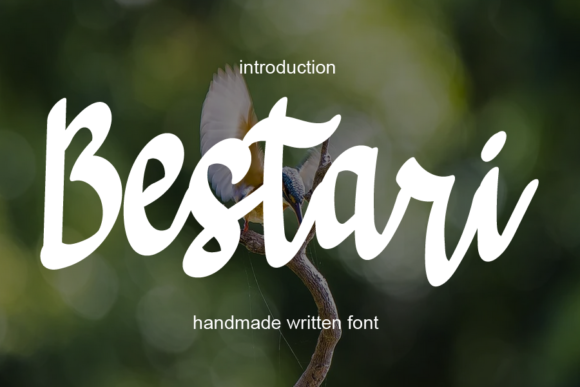
Introducing Bestari Font: Elevate Your Designs with Elegance
Are you a designer or crafter looking for a font that adds a touch of sophistication and customization to your projects? Look no further than Bestari Font, a delicate and well-balanced script font that is sure to elevate your designs. In this article, we’ll dive into the features and benefits of Bestari Font, and explore how it can be used to create stunning visual content.
What is Bestari Font?
Bestari Font is a beautiful script font that is designed to add a touch of elegance and refinement to any design project. Its delicate and well-balanced strokes make it perfect for creating visually appealing content that stands out from the crowd. Whether you’re working on a wedding invitation, thank you card, quote, greeting card, logo, or business card, Bestari Font is the perfect choice.
Key Features of Bestari Font
- Delicate and well-balanced strokes: Bestari Font features delicate and well-balanced strokes that give it a refined and elegant look.
- Script font style: Bestari Font is a script font that adds a touch of sophistication and customization to any design project.
- Perfect for wedding and greeting cards: Bestari Font is ideal for creating stunning wedding invitations, thank you cards, and greeting cards.
- Suitable for logos and business cards: Bestari Font can also be used to create professional-looking logos and business cards.
Benefits of Using Bestari Font
So, why should you choose Bestari Font for your design projects? Here are just a few benefits of using this beautiful script font:
- Adds a touch of elegance: Bestari Font adds a touch of sophistication and elegance to any design project.
- Customizable: Bestari Font can be customized to fit your design needs, making it perfect for creating unique and personalized content.
- Versatile: Bestari Font can be used for a wide range of design projects, from wedding invitations to logos and business cards.
- Easy to read: Despite its delicate strokes, Bestari Font is easy to read and understand, making it perfect for creating visual content that communicates a message.
How to Use Bestari Font in Your Designs
Using Bestari Font in your designs is easy. Here are a few tips to get you started:
- Pair it with other fonts: Bestari Font can be paired with other fonts to create a unique and visually appealing design.
- Experiment with colors: Bestari Font looks stunning in a variety of colors, so don’t be afraid to experiment and find the perfect hue for your design.
- Use it for headings and titles: Bestari Font is perfect for creating headings and titles that add a touch of elegance to your design.
Tips and Tricks for Working with Bestari Font
Here are a few tips and tricks to keep in mind when working with Bestari Font:
- Use it sparingly: Bestari Font is a delicate font, so use it sparingly to avoid overwhelming your design.
- Pay attention to spacing: Make sure to pay attention to spacing when using Bestari Font to ensure that your design looks balanced and visually appealing.
- Experiment with different sizes: Bestari Font looks stunning in a variety of sizes, so experiment to find the perfect size for your design.
| Font Name | Bestari Font |
| Author | Abadi letter |
In conclusion, Bestari Font is a beautiful script font that is perfect for designers and crafters looking to add a touch of elegance and customization to their design projects. With its delicate and well-balanced strokes, Bestari Font is ideal for creating stunning wedding invitations, thank you cards, quotes, greeting cards, logos, and business cards. Whether you’re a seasoned designer or just starting out, Bestari Font is a great addition to your font collection.